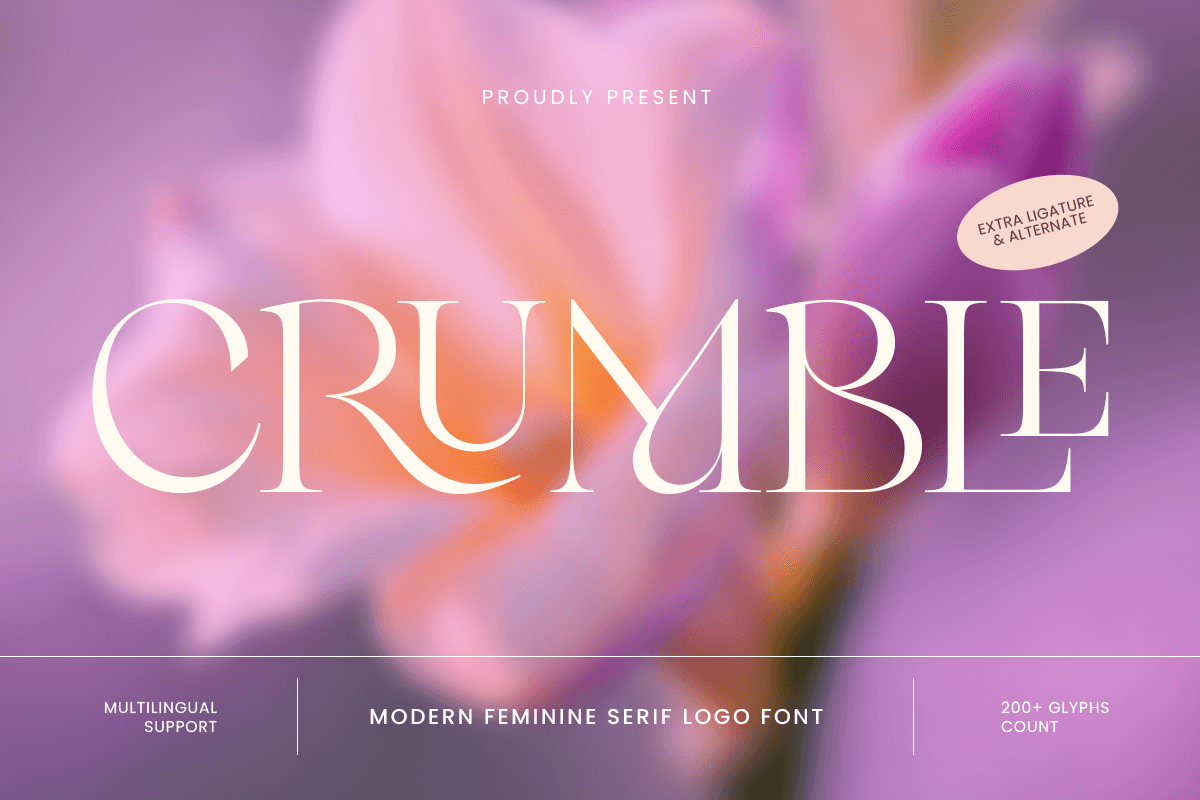
Crumble
-Modern Feminine Serif Logo FontCrumble - Modern Feminine Serif Logo Font
CRUMBLE is a modern feminine serif logo font created to express softness, elegance, and contemporary charm. With gentle curves, refined serif details, and a balanced structure, this typeface delivers a graceful personality that feels modern, stylish, and beautifully approachable.
Designed for branding-focused typography, CRUMBLE works seamlessly across logos, wordmarks, boutique identities, beauty packaging, editorial headlines, website headers, posters, signage, and social media visuals. Its feminine character adds warmth and elegance without losing clarity, making it ideal for premium brands that want a soft yet confident voice.
Whether you’re building a beauty brand, a lifestyle identity, or a modern editorial concept, CRUMBLE provides a refined serif style that feels delicate, polished, and memorable across digital and print applications.
Inspiration Behind CRUMBLE
CRUMBLE is inspired by modern feminine branding and elegant editorial typography—where softness meets structure. The design focuses on graceful proportions and subtle serif detailing to create a refined look that supports elegant logos, calm headlines, and premium brand storytelling.
CRUMBLE Font Features
Modern serif letterforms with feminine elegance
Designed for logo design and refined branding systems
Soft character with clean, professional readability
OpenType features for polished, flexible typography
Feminine logos and boutique brand identity
Beauty, skincare, wellness, and lifestyle branding
Editorial headlines and modern magazine layouts
Packaging, labels, and premium product design
Website headers, banners, and social media campaigns